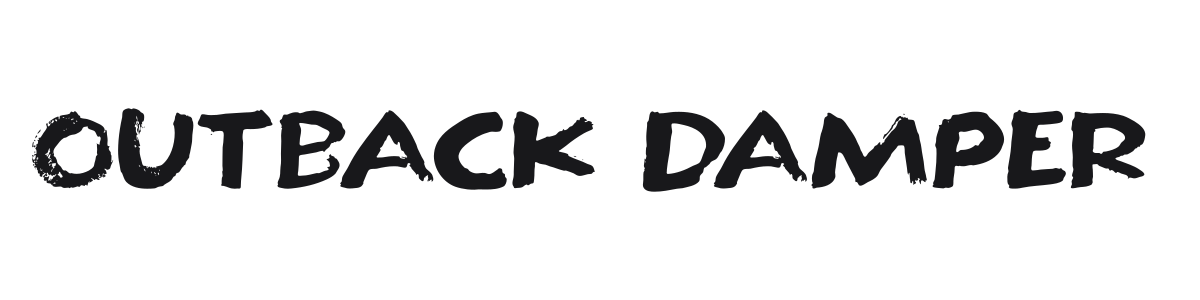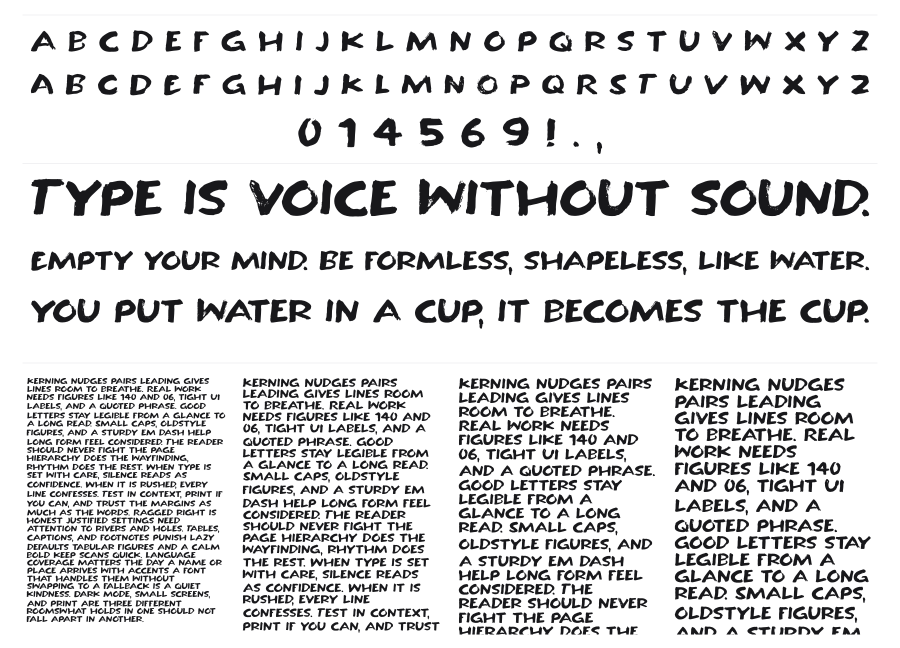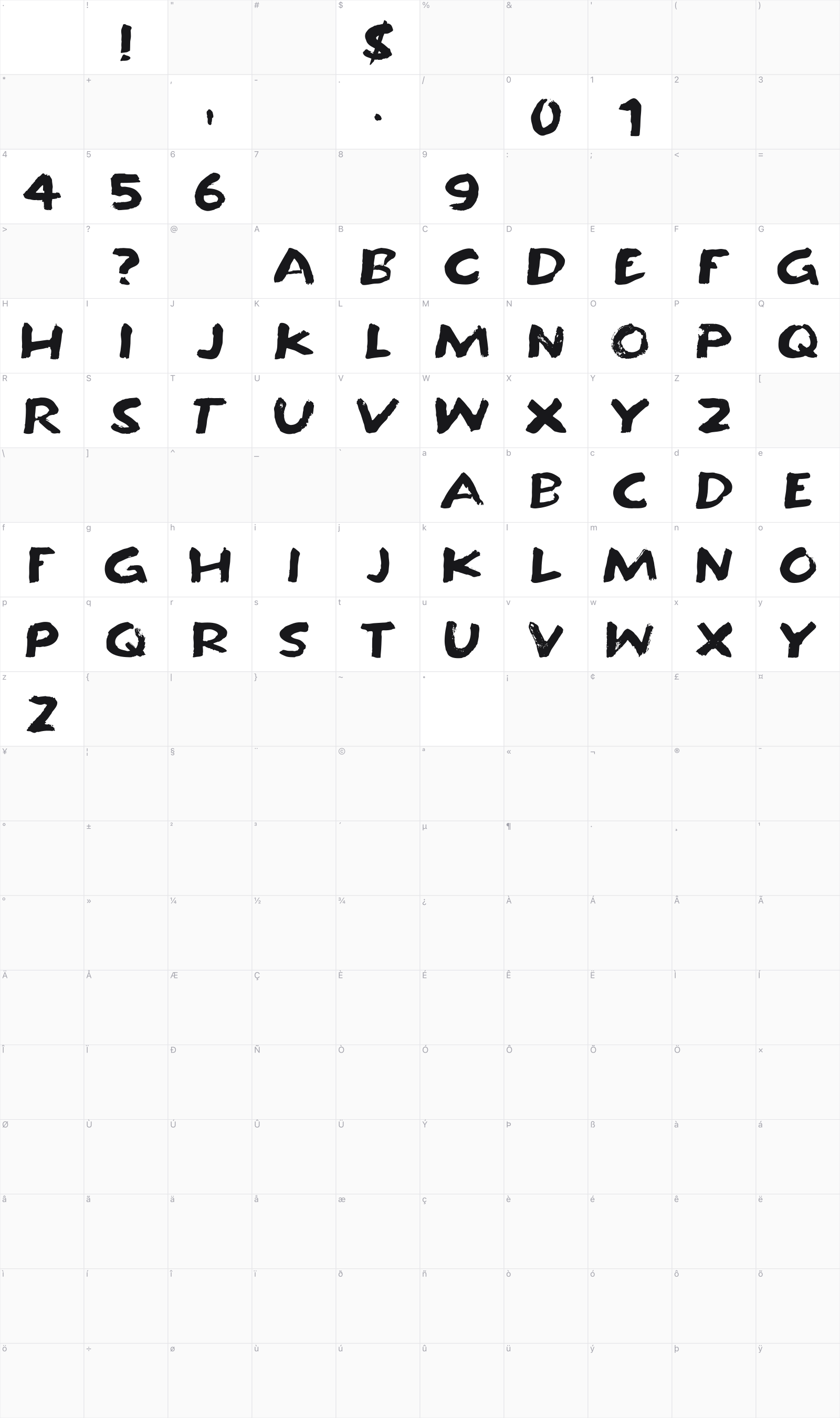
Outback Damper
Outback Damper is a heavy brush display font built from thick, bristly strokes with raw, uneven edges. The characters feel like they were dashed off with a wide, dry brush in a single pass, with natural irregularity in weight and baseline. It brings a gritty, outdoorsy energy to packaging, posters, and logos.